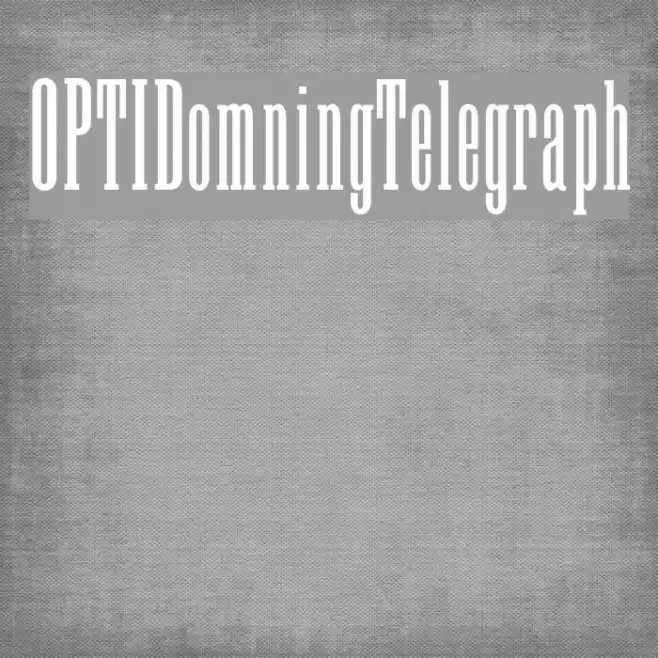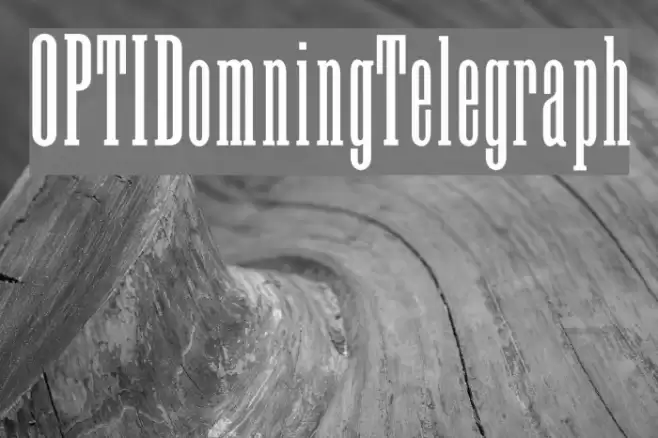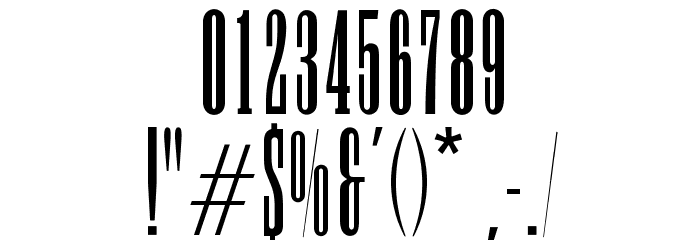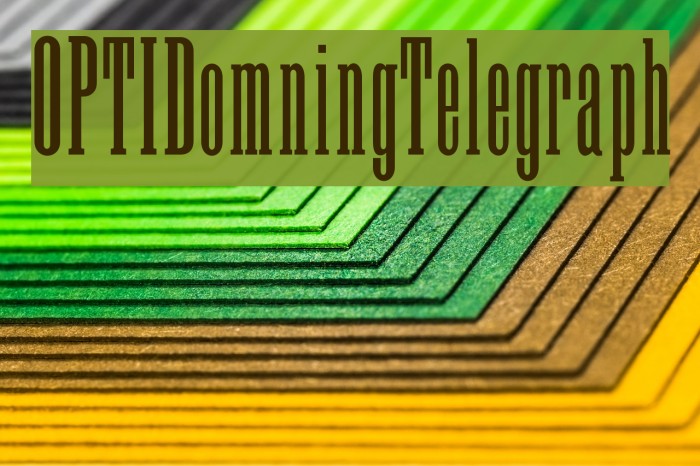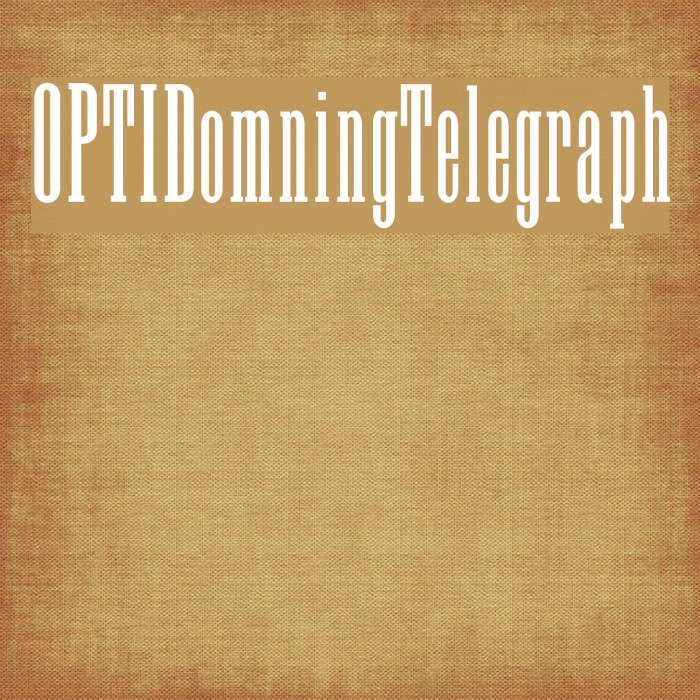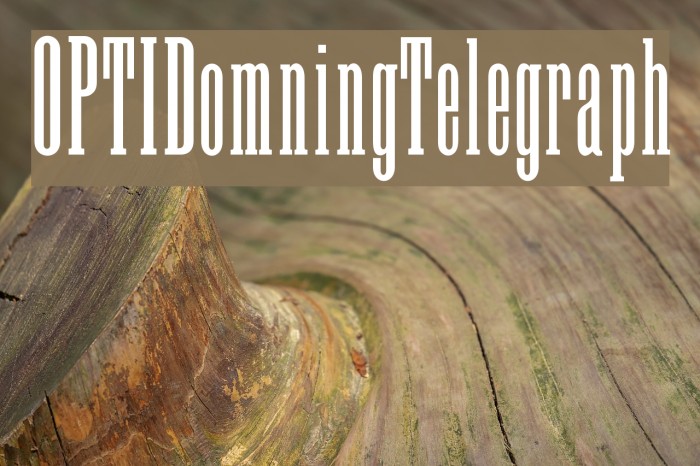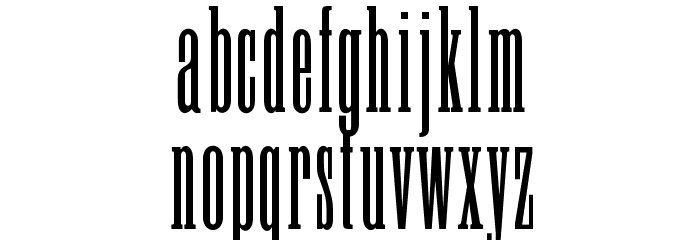
OPTIDomningTelegraph Font
OPTIDomningTelegraph Description
This font features a bold and striking design with tall, narrow characters. The uppercase letters are particularly elongated, giving a sense of grandeur and authority. The lowercase letters maintain a consistent style, complementing the uppercase with their own slender form. Numbers and special characters are designed to match the overall aesthetic, ensuring a cohesive look across all text elements. The font's high contrast between thick and thin strokes adds to its dramatic appearance, making it ideal for attention-grabbing headlines and impactful statements.
A bold, high-contrast font with tall, narrow characters from Uncategorized fonts.
- Proposed Projects: Ideal for use in headlines, posters, and branding materials where a strong visual impact is desired.
- Character Spacing: Tight